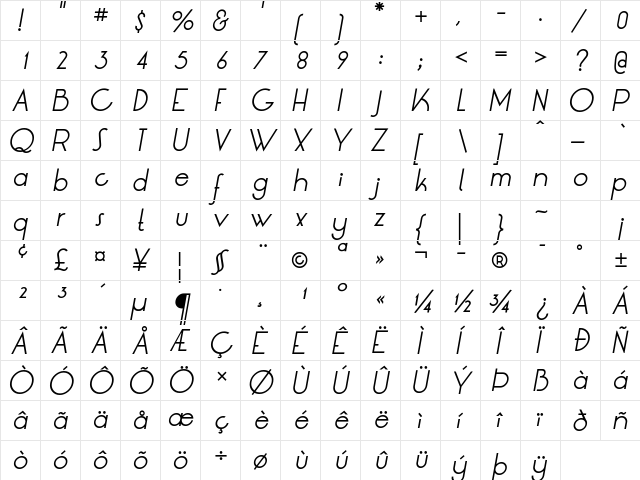
LRT Oksana Italic
| Designer | Lauren Thompson |
Design Context for LRT Oksana Typeface
LRT Oksana offers clean, dependable letterforms without strong stylistic allegiance, making it a practical choice for designers who need flexibility. The dynamic lean of this cut emphasises speed and emphasis in any layout.
Pro Tip: Use LRT Oksana for emphasis, pull quotes, and subheadings where its slanted energy can add rhythm to the layout.